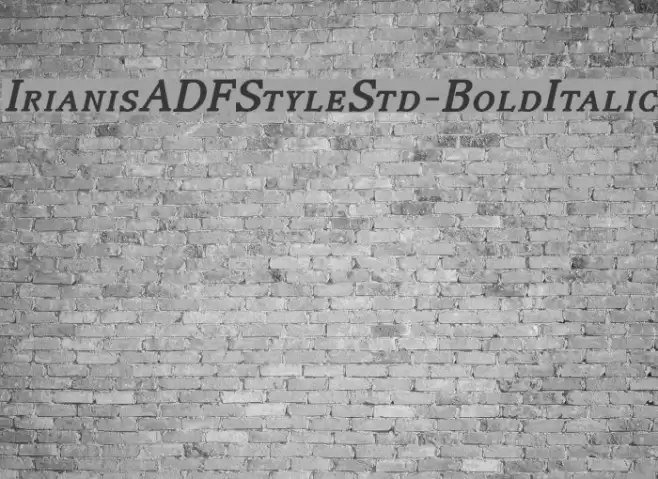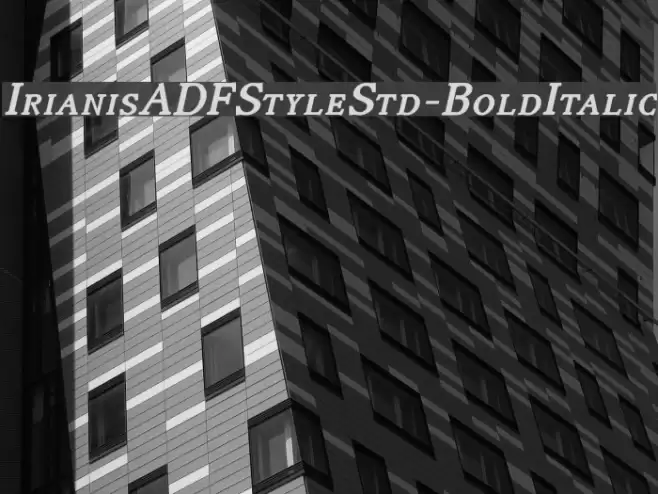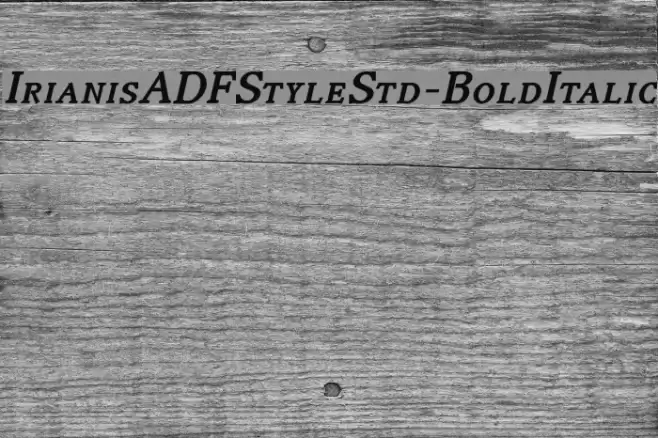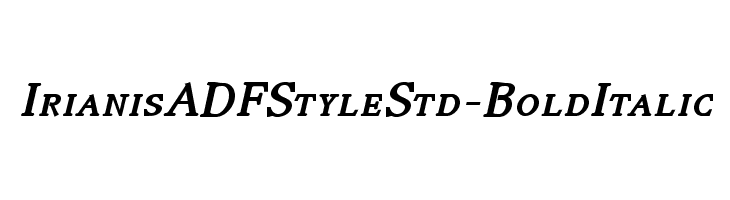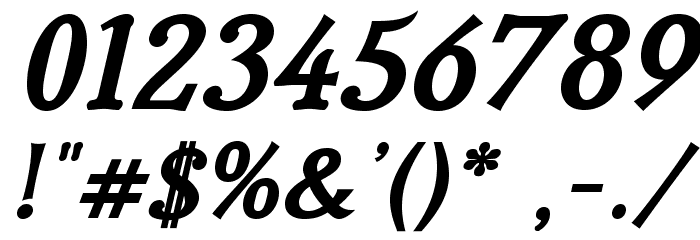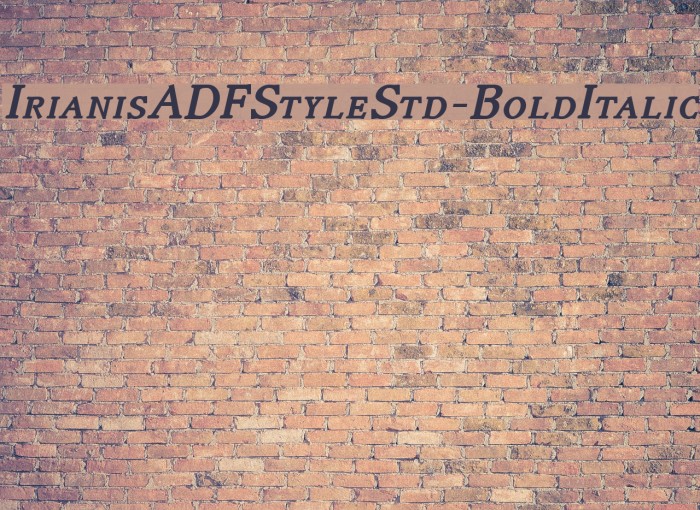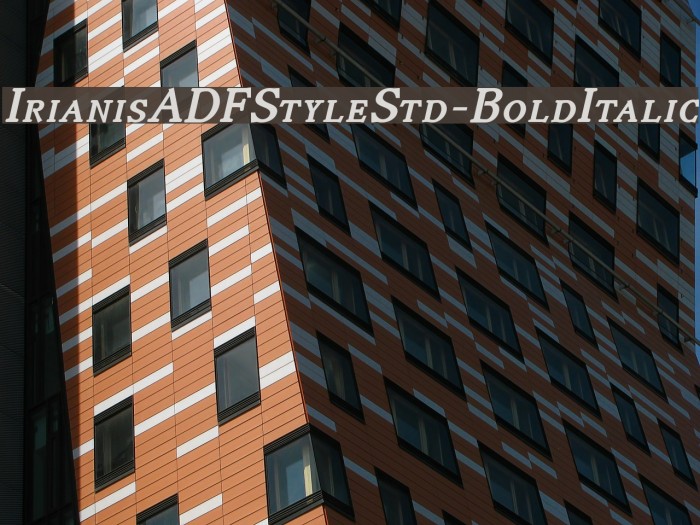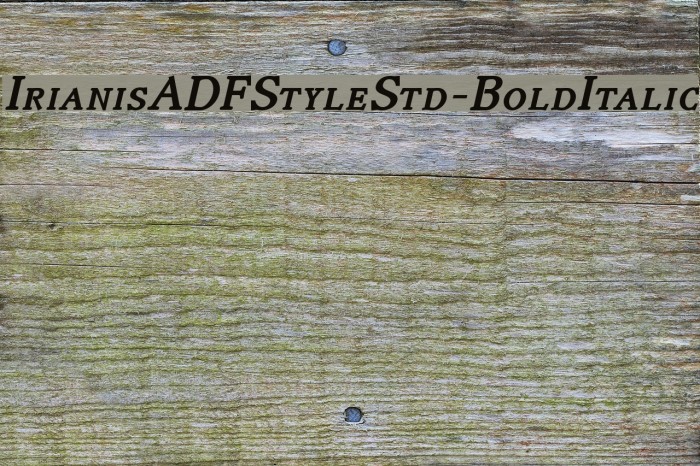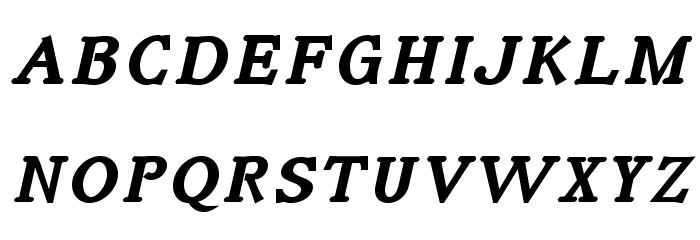
IrianisADFStyleStd-BoldItalic Font
IrianisADFStyleStd-BoldItalic Description
This font features a bold and italicized style with a classic serif design. The characters have a slight slant, adding a dynamic and elegant touch. The serifs are pronounced, giving it a traditional and formal appearance. The numbers are consistent with the letterforms, maintaining the same boldness and italic slant. Special characters are well-integrated, ensuring versatility in various design contexts. The overall look is sophisticated, making it suitable for projects that require a touch of elegance and formality.
A bold, italic serif font with a classic and elegant style from Uncategorized fonts.
- Proposed Projects: Ideal for formal invitations, book covers, branding, and editorial design.
- Overall Style: Classic
- Use Case: Headlines, Logos, Editorial design